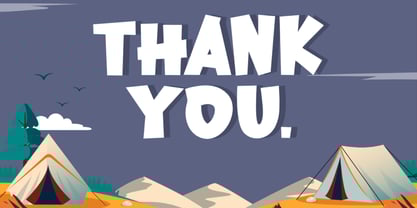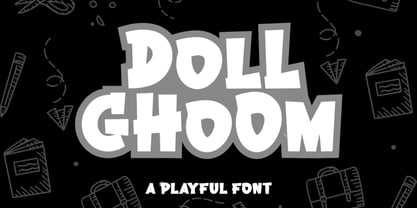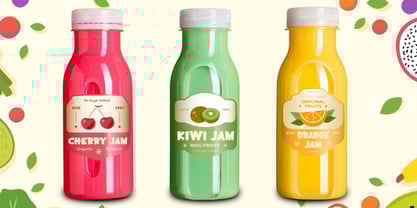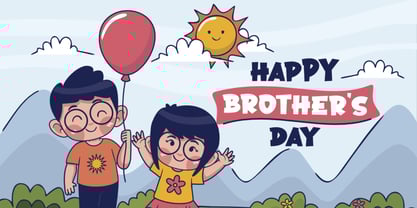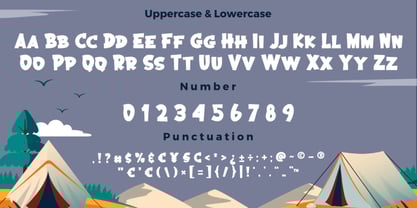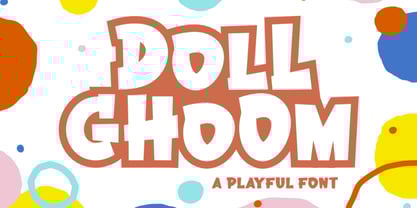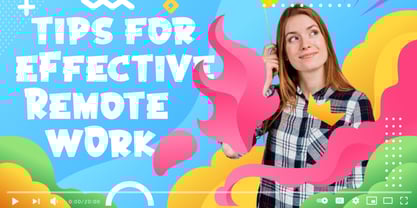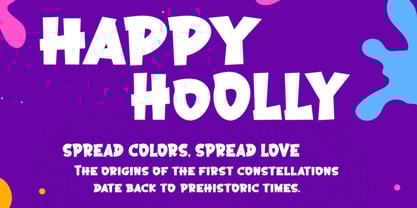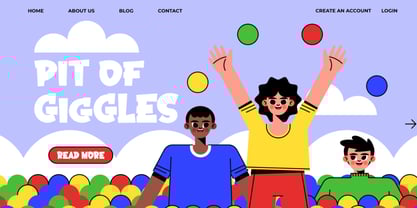
Doll Ghoom
by Bayuktx
The Doll Ghoom Font Family was designed by Bayu Aji Fais Mursid and published by Bayuktx. Doll Ghoom contains 1 styles.
Doll Ghoom – Adorable Premium Font
Doll Ghoom is a fun and cheerful display font crafted with precision and personality. Its lively letterforms are perfect for playful branding, kids-themed projects, packaging, posters, social media, merchandise, and more.
This font is designed to be both charming and highly versatile—ready to bring a whimsical touch to your creative work.
FEATURES :
* Uppercase
* Lowercase
* Number
* Punctuation
* Multilingual
Designers: Bayu Aji Fais Mursid
Publisher: Bayuktx
Foundry: Bayuktx